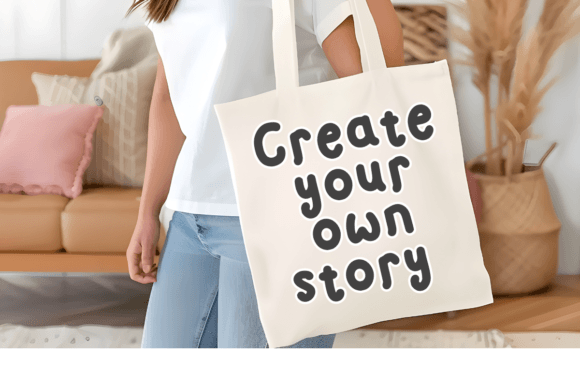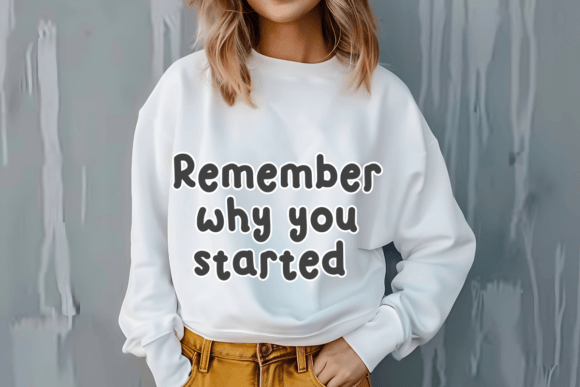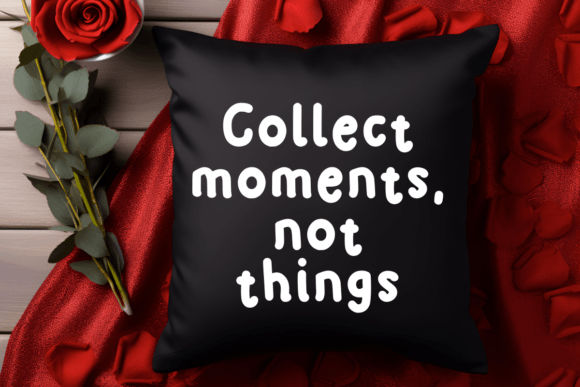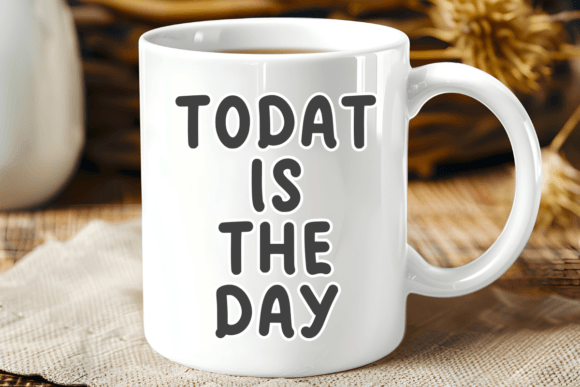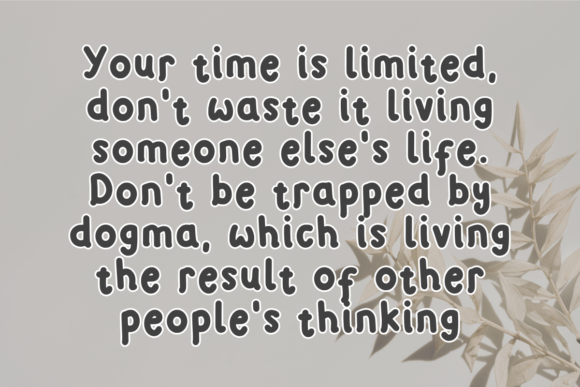
Introducing Bohothink Font: The Bold and Cute Display Font You Need
Are you tired of using the same old fonts in your designs? Do you want to add a touch of personality and whimsy to your creations? Look no further than Bohothink Font, a bold and cute display font that’s sure to elevate your font library. In this article, we’ll dive into the world of Bohothink Font and explore its features, benefits, and uses.
A Font that’s Anything but Ordinary
Bohothink Font is a one-of-a-kind display font that’s designed to make a statement. Its bold and playful design makes it perfect for a wide range of projects, from branding and advertising to packaging and crafts. Whether you’re a designer, crafty DIY enthusiast, or simply someone who loves to create, Bohothink Font is an incredible asset to have in your toolkit.
What Makes Bohothink Font So Special?
So, what sets Bohothink Font apart from other fonts out there? Here are just a few of its standout features:
- Bold and eye-catching: Bohothink Font is designed to grab attention and make a statement. Its bold and chunky design ensures that your text will stand out, no matter what project you’re working on.
- Cute and playful: Despite its boldness, Bohothink Font has a playful and charming quality that’s hard to resist. It’s perfect for projects that require a touch of whimsy and personality.
- Versatile: Bohothink Font is incredibly versatile and can be used for a wide range of projects, from digital designs to print materials.
- Easy to read: Despite its bold design, Bohothink Font is surprisingly easy to read, making it perfect for headlines, titles, and other display text.
Who is Bohothink Font For?
Bohothink Font is perfect for anyone who loves to create and design. Here are just a few examples of who might benefit from this amazing font:
- Graphic designers: Whether you’re working on a branding project, creating social media graphics, or designing a website, Bohothink Font is a great addition to your font library.
- Crafty DIY enthusiasts: If you love to craft, scrapbook, or create handmade cards, Bohothink Font is a great way to add a personal touch to your projects.
- Small business owners: If you’re looking for a way to make your brand stand out, Bohothink Font is a great choice for headlines, titles, and other display text.
How to Use Bohothink Font
Bohothink Font is incredibly easy to use, even if you’re new to design or fonts. Here are a few tips to get you started:
- Use it as a headline: Bohothink Font is perfect for headlines and titles, where its bold and eye-catching design can really shine.
- Pair it with other fonts: Bohothink Font pairs well with a wide range of other fonts, from simple sans-serifs to more decorative scripts.
- Experiment with colors: Bohothink Font looks great in a wide range of colors, from bright and bold to more muted and pastel shades.
In conclusion, Bohothink Font is an amazing addition to any font library. Its bold and cute design makes it perfect for a wide range of projects, from branding and advertising to packaging and crafts. Whether you’re a designer, crafty DIY enthusiast, or simply someone who loves to create, Bohothink Font is sure to become one of your go-to fonts. So why wait? Download Bohothink Font today and start creating something amazing!